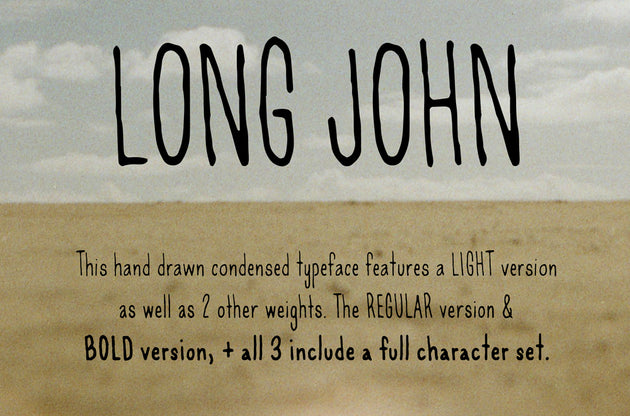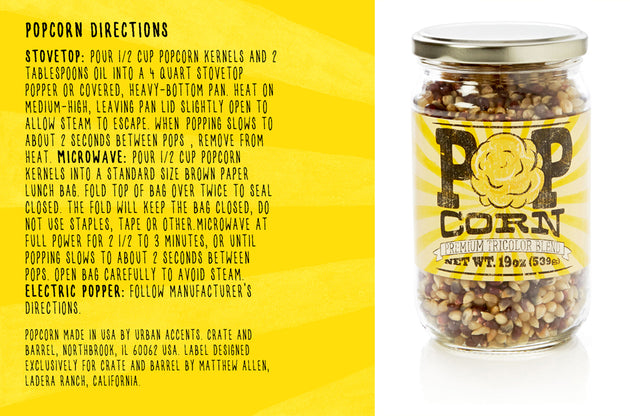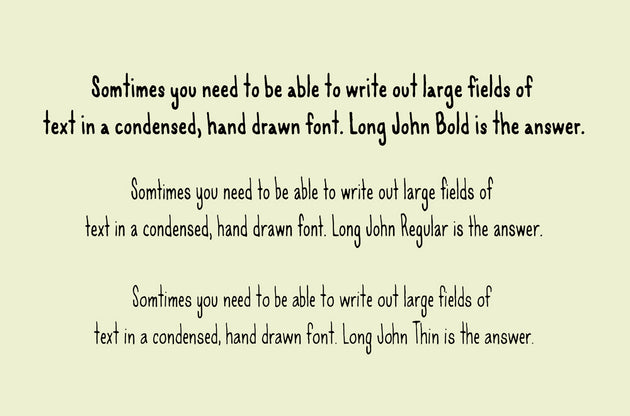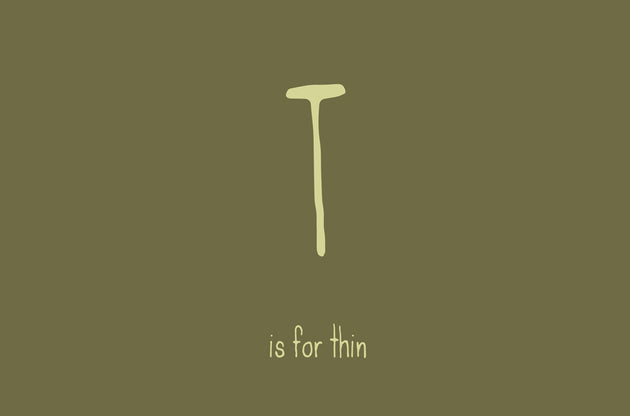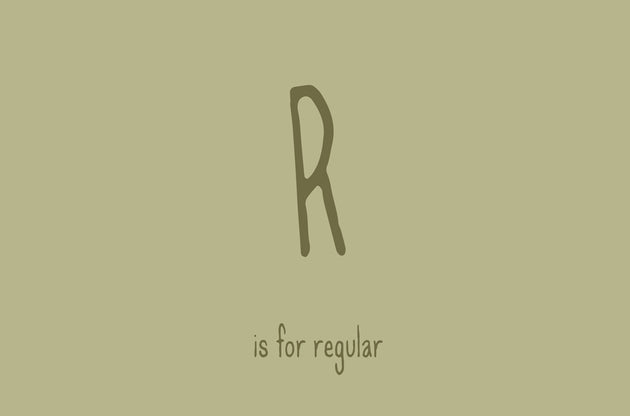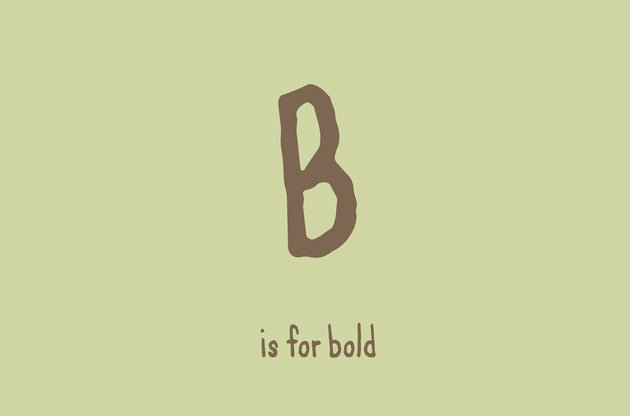
This font looks hand written because... it was hand written... outside of a computer.
Long John font is hand written typeface available in 3 weights - Thin, Regular and Bold. Long John font is perfect for large bodies of text! This OTF font was written with marker pen, and the distinct strokes can add a hand written feel to any design.
Long John font features a full character set for all of your publishing needs.
An OTF font Long John is infinitely scalable. Long John still possesses the nuance of a hand lettered font, while working just like any other font in your font library.